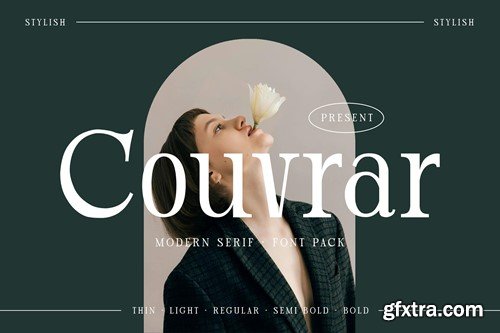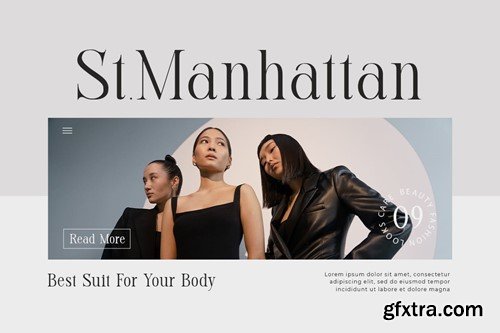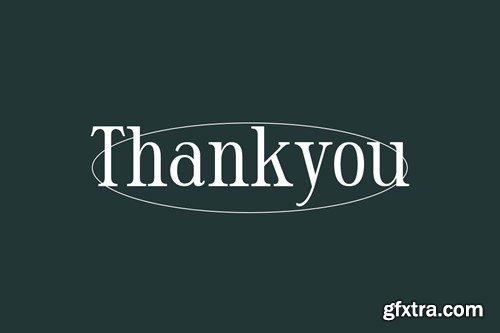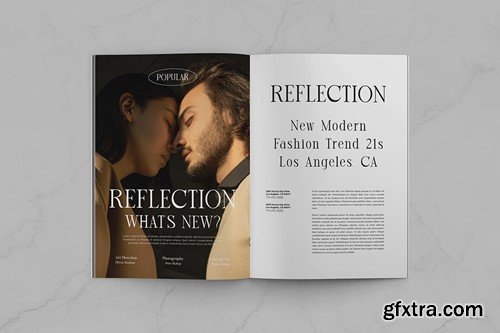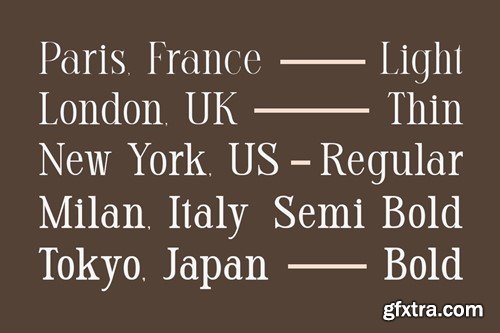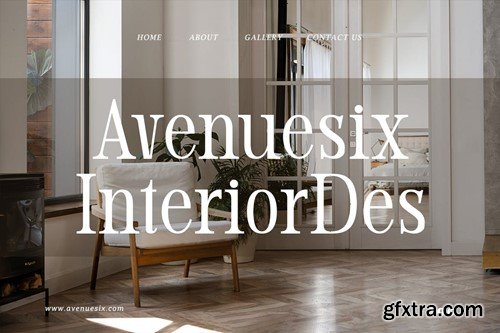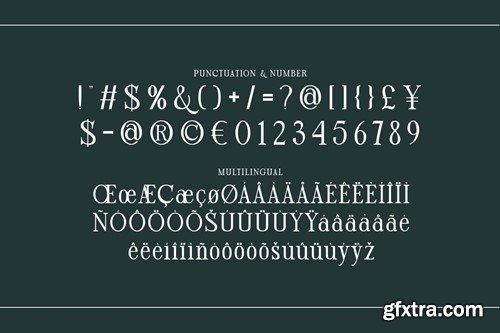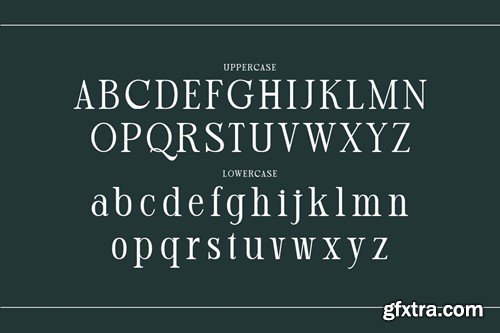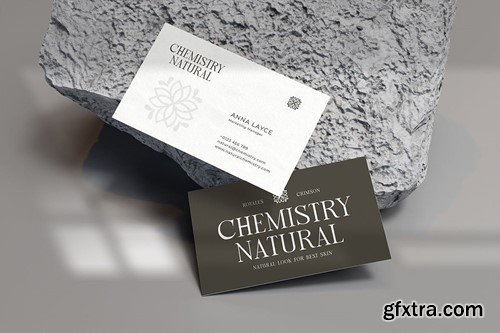
Couvrar - 现代 serif 字体包 EA7KGEH
Introducing "Couvrar" - a modern serif font pack that combines timeless elegance with contemporary flair, offering versatility and style in every character. With its sleek lines and refined serifs, "Couvrar" exudes sophistication and class in every letter. This font pack includes a variety of weights and styles, allowing you to create a wide range of designs with ease. Whether you're working on branding, editorial layouts, web design, or print materials, "Couvrar" has you covered. Embrace the modern versatility of "Couvrar" as it effortlessly enhances your projects. Whether you're crafting elegant logos, professional documents, stylish headlines, or sleek packaging, this font pack provides the perfect typographic solution for any design challenge. Step into the world of modern sophistication with "Couvrar" and elevate your designs with its timeless elegance and contemporary charm. Features: File Included: – Couvrar Bold ( OTF, TTF, WOFF, WOFF2 ) – Couvrar Light ( OTF, TTF, WOFF, WOFF2 ) – Couvrar Regular ( OTF, TTF, WOFF, WOFF2 ) – Couvrar SemiBold ( OTF, TTF, WOFF, WOFF2 ) – Couvrar Thin ( OTF, TTF, WOFF, WOFF2 )